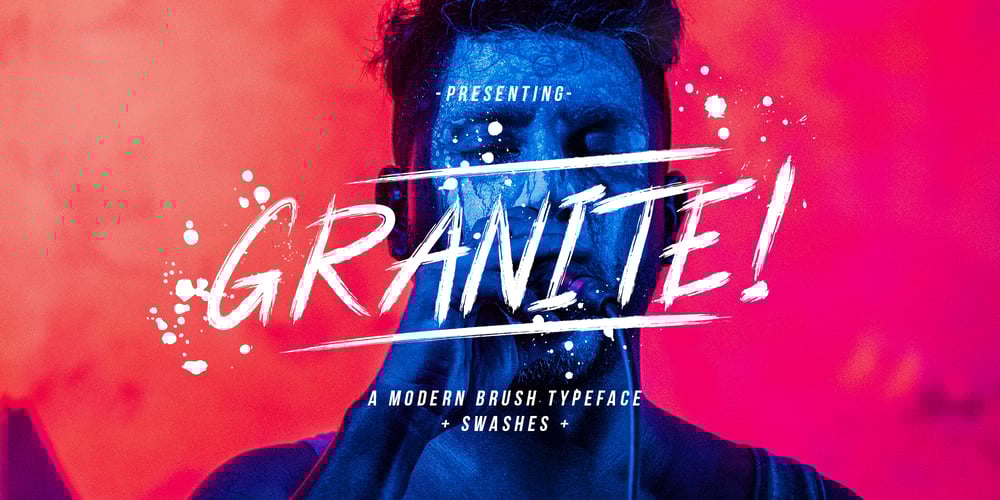
Granite Brush Font Family was designed by Rian Rahardi and published by Creatype Studio. Granite Brush contains 2 styles and family package options. Granite is handmade authentic font brush with stylish street lifestyle and looks like extreme sport style usage.Granite is perfect for photography, watermark, social media posts, advertisements, logos & branding, invitation, product designs, label, stationery, wedding designs, product packaging, special events or anything that need handwriting taste.What’s Included : Granite Swashes Ton of glyphs (include Uppercase, Lowercase, Numerals & Punctuations, Swashes) Works on PC & Mac Simple installations Accessible in the Adobe Illustrator, Adobe Photoshop, Adobe InDesign, even work on Microsoft Word. PUA Encoded Characters – Fully accessible without additional design software. Fonts include multilingual support for; Afrikaans, Albanian, Catalan, Danish, Dutch, English, French, Hungarian, Icelandic, Italian, Spanish, Portuguese, German, Swedish, Norweigen, Polish, Indonesian, Turkish, Zulu